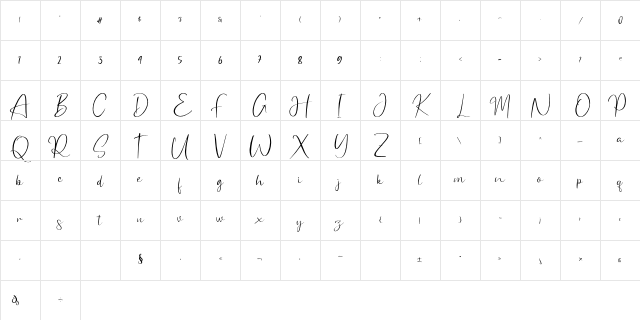
Hassanah Signature Regular
Foundry: Hendra Pratama
Designer: Hendra Pratama
Design Context for Hassanah Signature
Hassanah Signature is a composed and adaptable typeface that performs quietly and consistently across a wide range of design contexts.
Pro Tip: Use Hassanah Signature in both headline and body roles to test its range before committing to a single application.
Who designed the Hassanah Signature Regular font?